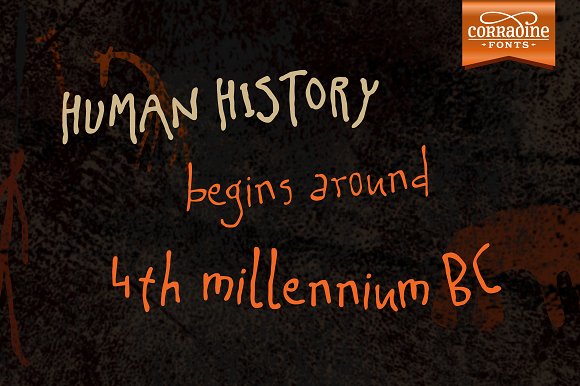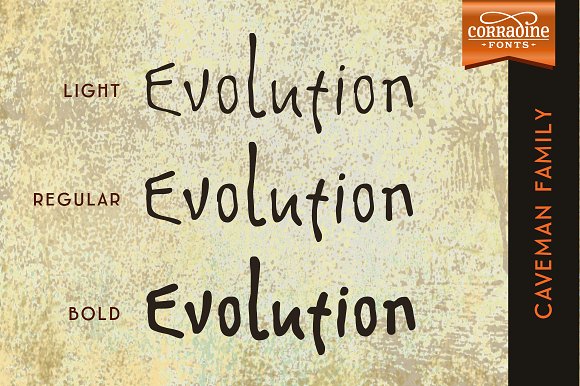
The Birth of Art: Unleashing the Power of Caveman Family Font
Remember that moment when you were a child, scribbling on a piece of paper with crayons, letting your imagination run wild? It was a moment of pure creativity, where the boundaries of reality didn’t exist, and anything was possible. That sense of freedom and expression is what drives artists and designers to push the limits of their craft. And it’s exactly this spirit that inspired the Caveman Family Font, a rustic and earthy typeface that takes us back to the dawn of human creativity.
The Caveman Family Font is a tribute to the prehistoric art that adorned the walls of caves, a testament to the early humans’ ability to express themselves through art. This font family is perfect for designers looking to add a touch of raw, unbridled energy to their projects. With its rough, hand-drawn feel, it’s a valuable tool for anyone looking to add some edge and personality to their work.
Caveman Family Font Key Features
- Unique Characteristics: The Caveman Family Font features a prehistoric-inspired design with distinctive letterforms, making it a great choice for creating a rugged, ancient look.
Caveman Family Font Review
I’ve had the chance to work with the Caveman Family Font, and here’s my honest take.
- Rugged charm: This font has a unique, prehistoric vibe that can add a touch of excitement to your designs.
- High contrast: The bold lines and letterforms create a striking visual effect that can help your text stand out.
- Playful versatility: Caveman Family Font is suitable for a wide range of applications, from children’s book covers to craft beer labels.
- Limited legibility: At smaller sizes, the font can become difficult to read due to its rough, hand-drawn feel.
- Not ideal for body text: While the font excels in headlines and titles, it’s not the best choice for large blocks of text.
- May not be suitable for formal designs: The font’s playful, rough-around-the-edges aesthetic may not be the best fit for more serious or professional projects.
The Caveman Family Font is a great choice for designers looking to add some personality and whimsy to their projects. While it may have some limitations, its unique charm and versatility make it a valuable addition to any font library.
Tips for Getting the Most Out of Caveman Family Font
Use Caveman Family Font for headings and titles to add a primitive touch to your designs.
Combine it with other fonts for a unique and eye-catching look.
Experiment with different font sizes and styles to create a visually appealing design.
Caveman Family Font is ideal for:
Prehistoric-themed designs.
Outdoor and adventure-related projects.
Children’s educational materials.